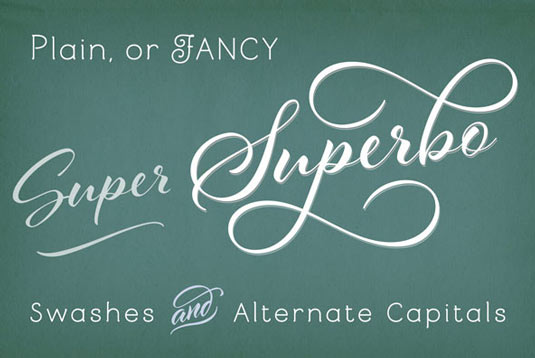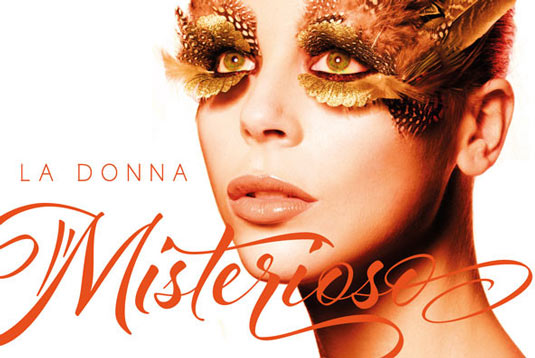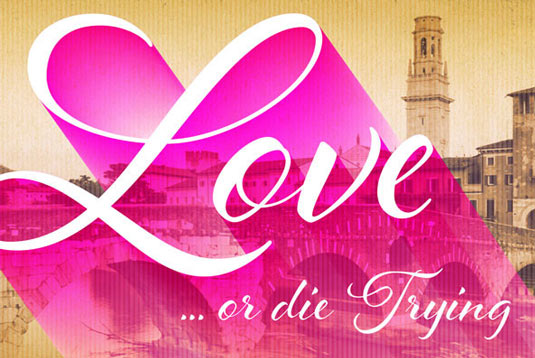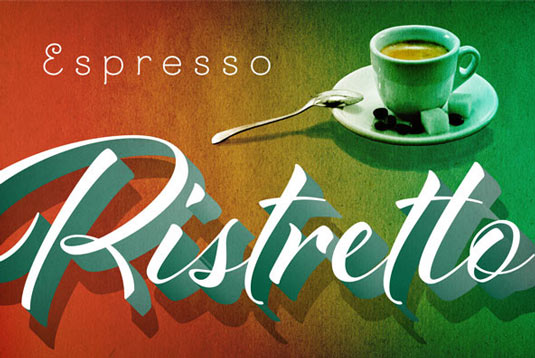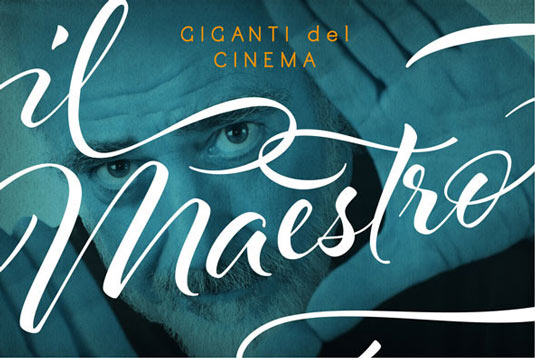
Font of the day: Al Fresco
Al Fresco by Laura Worthington
Today's font of choice, Al Fresco, was created by graphic designer Laura Worthington. "Al Fresco is a breezy, light, yet expressive typeface perfect for packaging products and titling work that call for a youthful, delectable flair," Worthington says. "Its elegance carries a subtle earthiness; its beauty is unconventional, both stylish and exuberant."